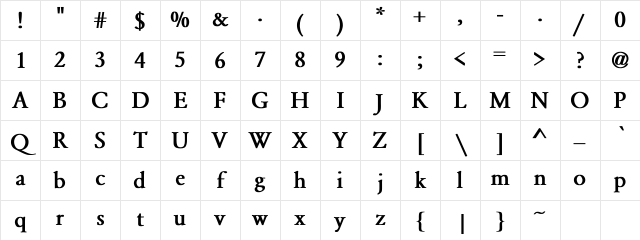
Complete Yearlind Bold glyph index. Displaying only characters natively supported by Yearlind Bold font.
Yearlind is a composed and adaptable typeface that performs quietly and consistently across a wide range of design contexts. Its bold stroke weight gives it real presence on the page.